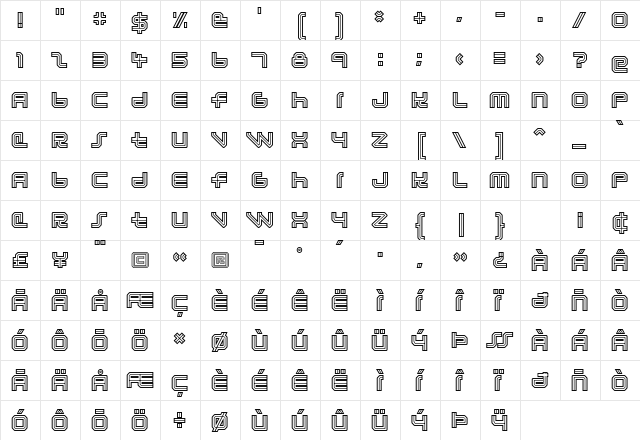
Lunasol Aurora
Design Context for Lunasol Typeface
Lunasol is a composed and adaptable typeface that performs quietly and consistently across a wide range of design contexts.